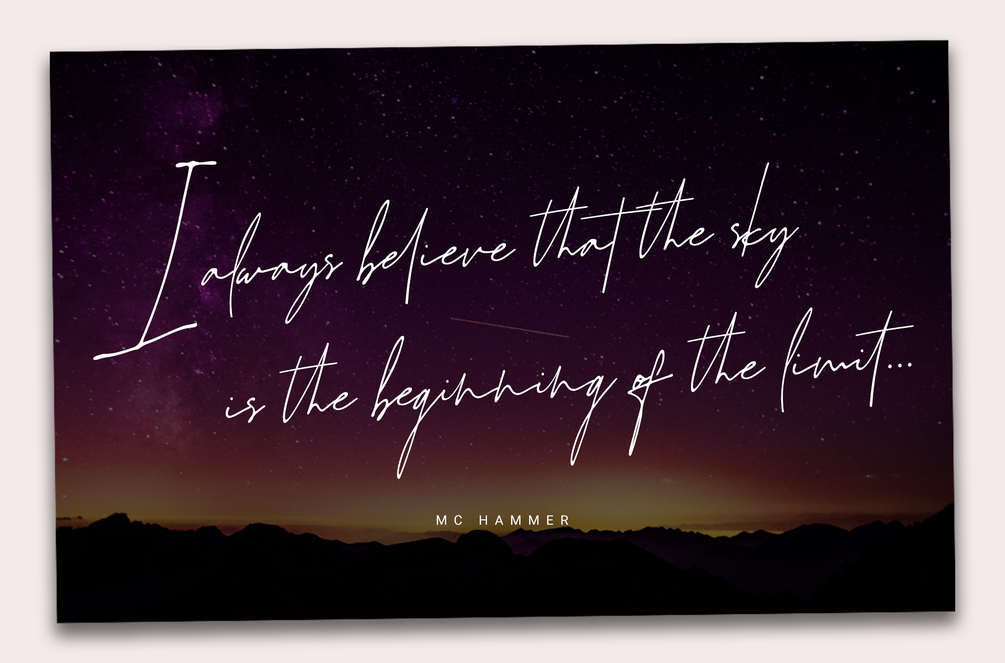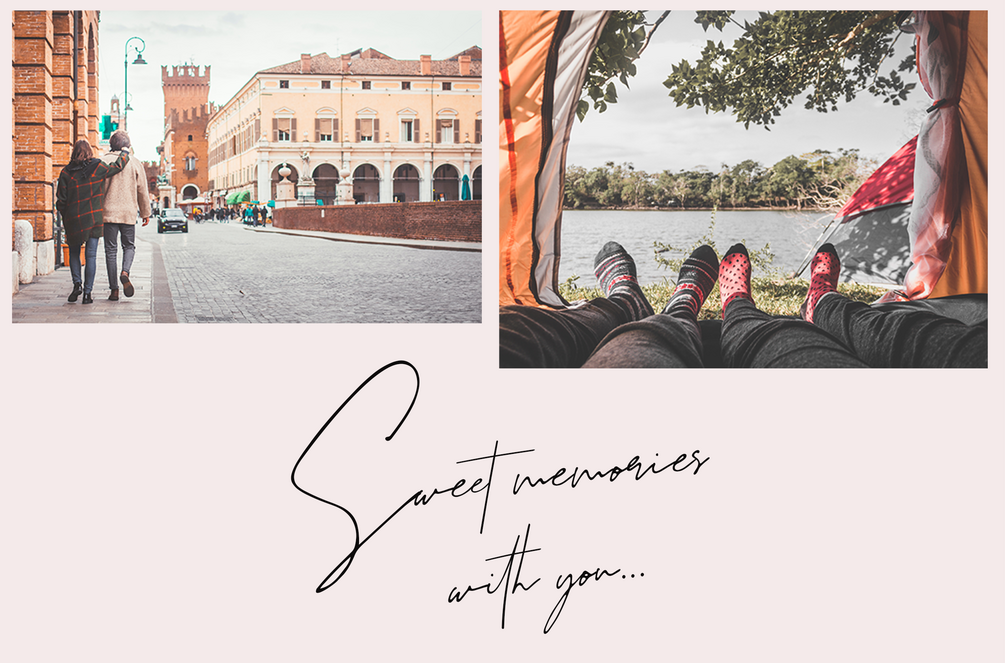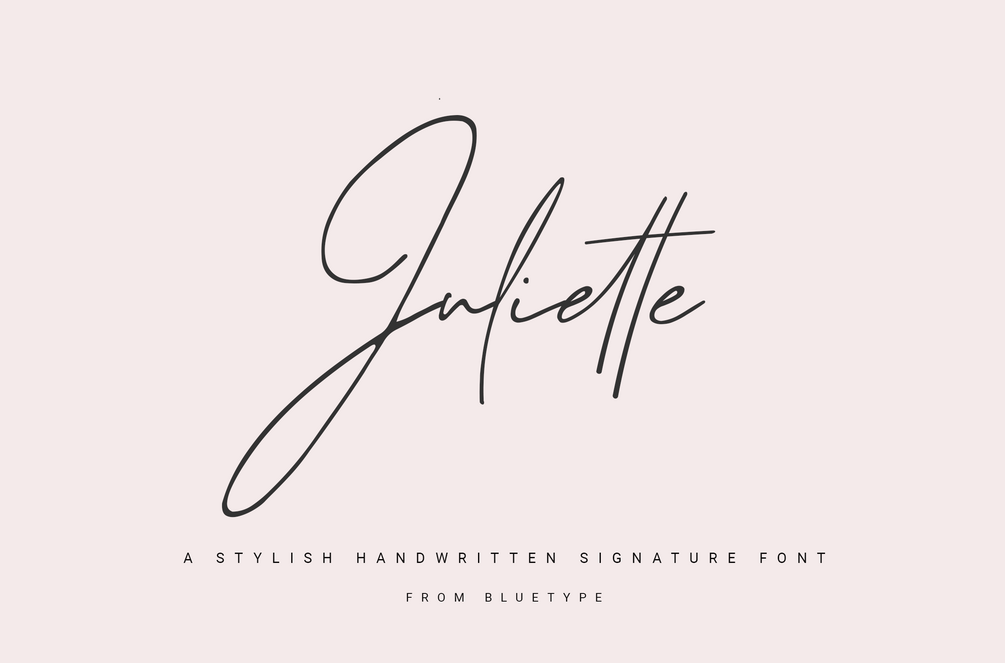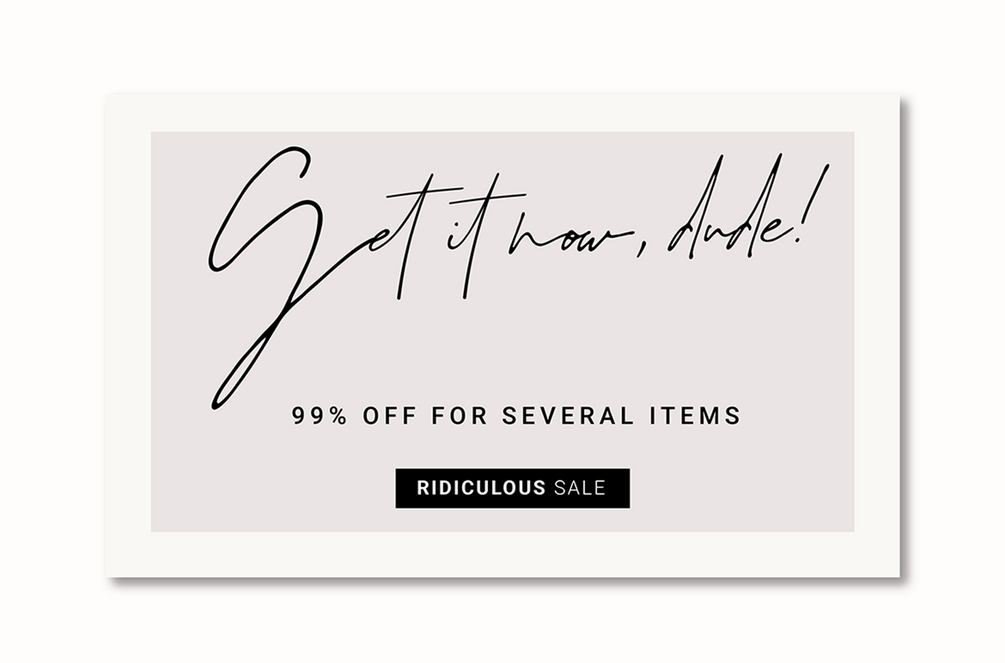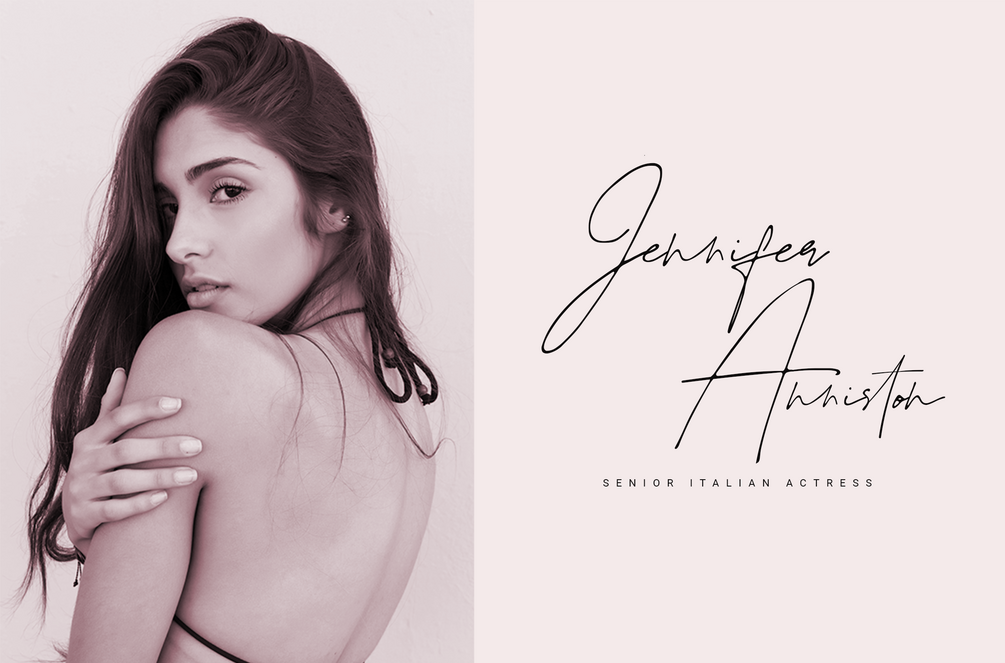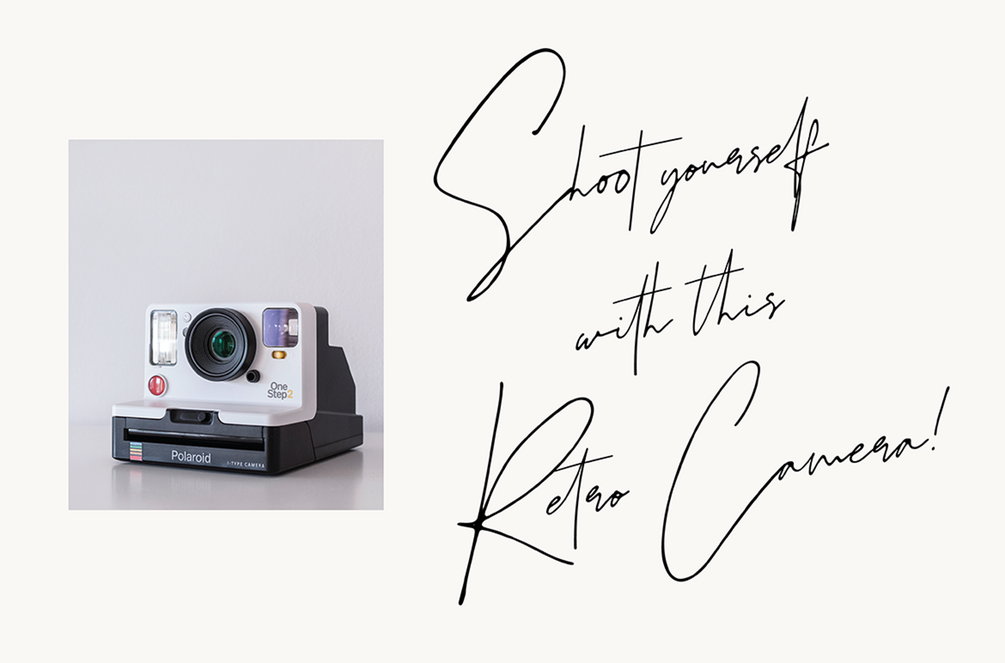
Juliette | Signature Font
Juliette is natural hand-lettered font manufactured by Bluetype. You will get full set of lowercase and uppercase letters, numerals and punctuation, multilingual symbols, alternate lowercase, and pack of ligatures.This font that is suitable for branding, signature, wedding invitation, promotion, product packaging, and other needs. This font is natural, simple, but still authentic and very stylish.
Juliette Features:
Ligatures
Uppercase and Lowercase letters
Numbering, Symbols, and Punctuations
Multilingual Support